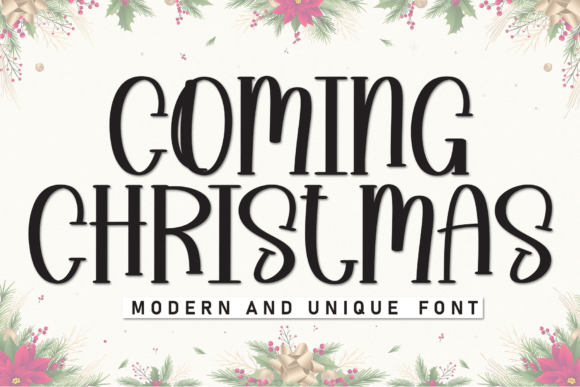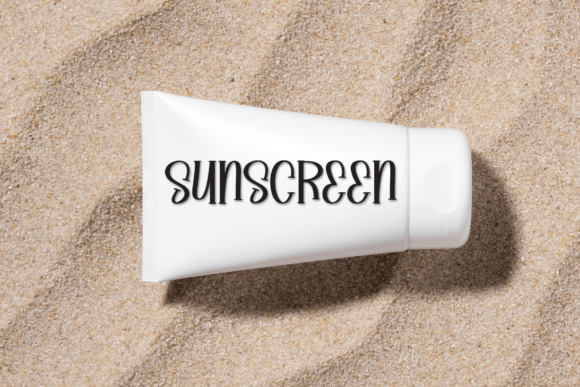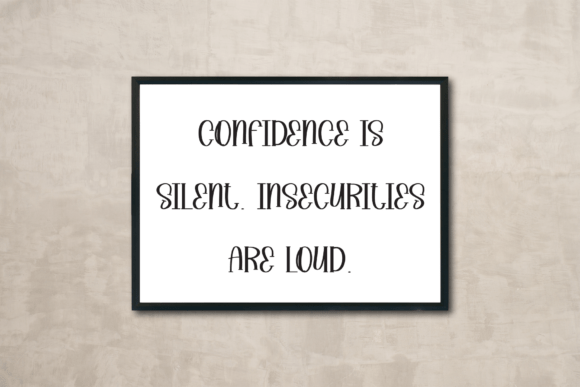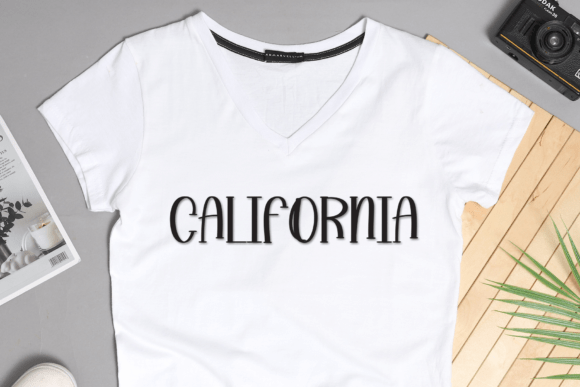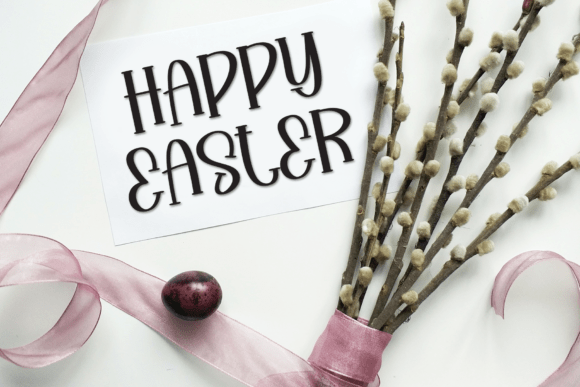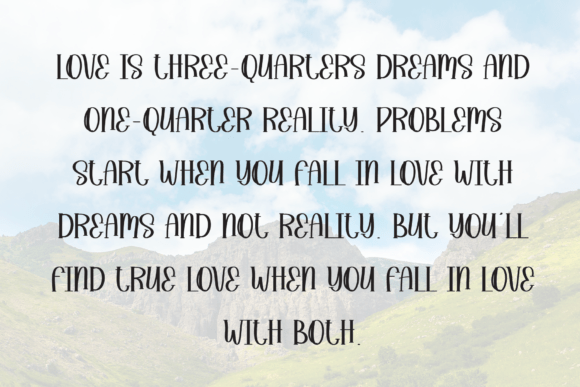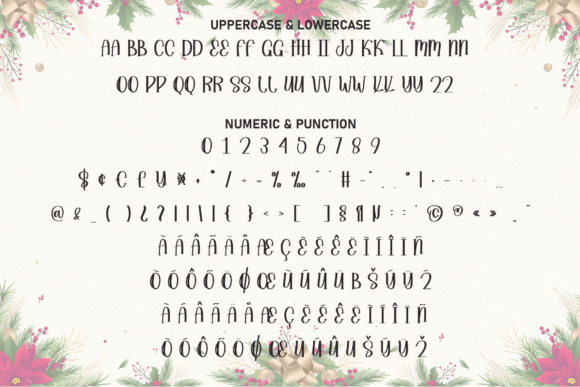
The Magic of Christmas in Every Letter
As the holiday season approaches, we can’t help but feel the excitement and joy that comes with it. The twinkling lights, the sound of carolers, and the warmth of loved ones gathered around – it’s a time of year that sparks creativity and inspires us to make something special. For designers, this means finding the perfect font to capture the essence of the season and bring it to life in their work.
Enter the Coming Christmas Font, a charming display font that embodies the spirit of the holiday season. With its clean lines, balanced letterforms, and subtle rounded edges, this font is the perfect addition to any design project. Whether you’re creating a festive branding campaign, designing packaging for holiday treats, or crafting digital content to spread cheer, the Coming Christmas Font is sure to add a warm and inviting touch to your work.
Coming Christmas Font Key Features
- Font Family: Coming Christmas Font is a unique, festive font family that includes 6 styles: Regular, Italic, Bold, Bold Italic, Outline, and Fill.
- Character Set: Supports a wide range of languages, including English, Spanish, French, German, Italian, and many others, with over 200 characters in each style.
- Unique Characteristics: Features a distinctive, hand-drawn design with intricate details and ornaments, making it perfect for holiday-themed designs, cards, and packaging.
Designer Review: Coming Christmas Font
Overall, I think the Coming Christmas Font is a great addition to any holiday design project. Here are some of its standout features:
- ✨ The font’s modern design gives it a fresh and contemporary feel, perfect for modern holiday designs.
- ✨ The font is highly legible, making it easy to read even in smaller sizes.
- ✨ The font’s bold lines and playful details add a fun and festive touch to any design.
However, I do have a few concerns about the font’s limitations:
- ⚠️ The font may not be suitable for more traditional or vintage-inspired holiday designs, as it has a very modern feel.
- ⚠️ The font may not be as versatile as some other holiday fonts, as it’s specifically designed for Christmas-related projects.
Overall, I think the Coming Christmas Font is a great choice for designers looking for a modern and festive font for their holiday projects. It’s easy to use, highly legible, and adds a fun and playful touch to any design. However, it may not be the best choice for designers looking for a more traditional or versatile holiday font.
To get the most out of “Coming Christmas Font”, try combining it with other festive elements like holly, snowflakes, or candy canes.
“Coming Christmas Font” is perfect for:
Creating holiday invitations and party decorations.
Designing festive social media graphics and ads.
Adding a touch of holiday cheer to your website or blog.